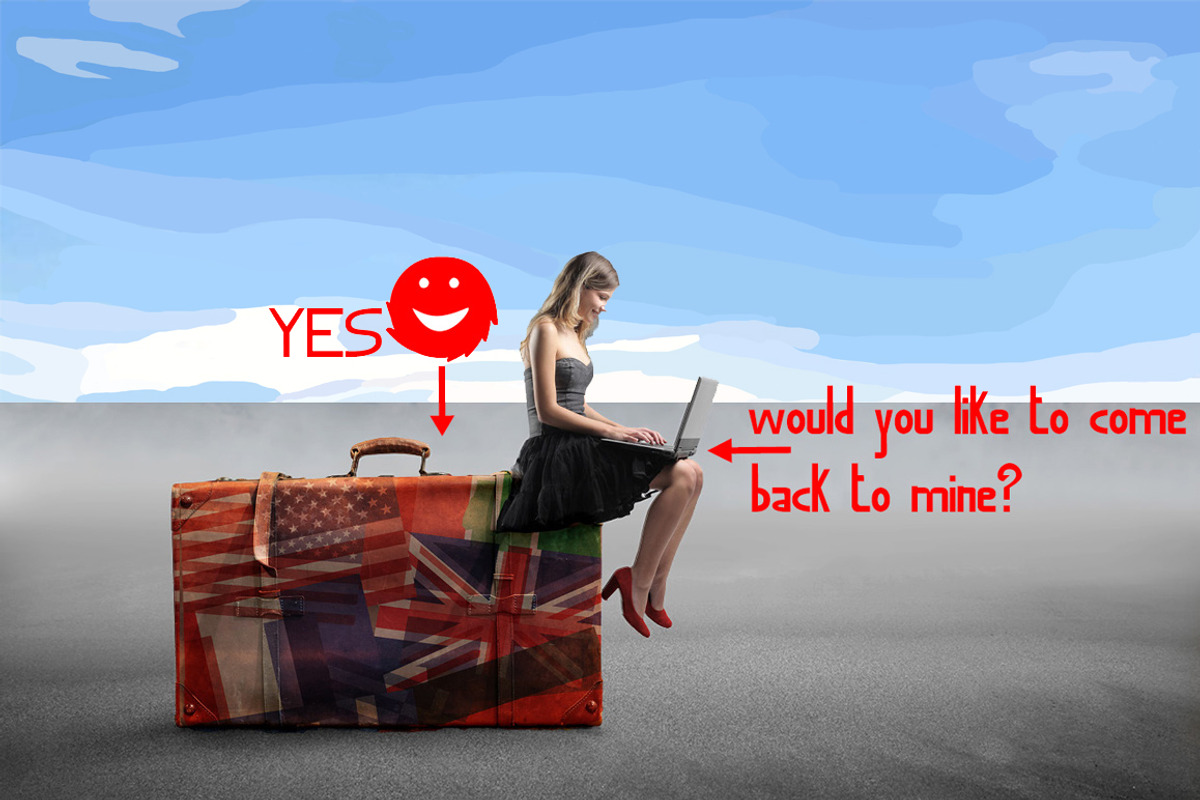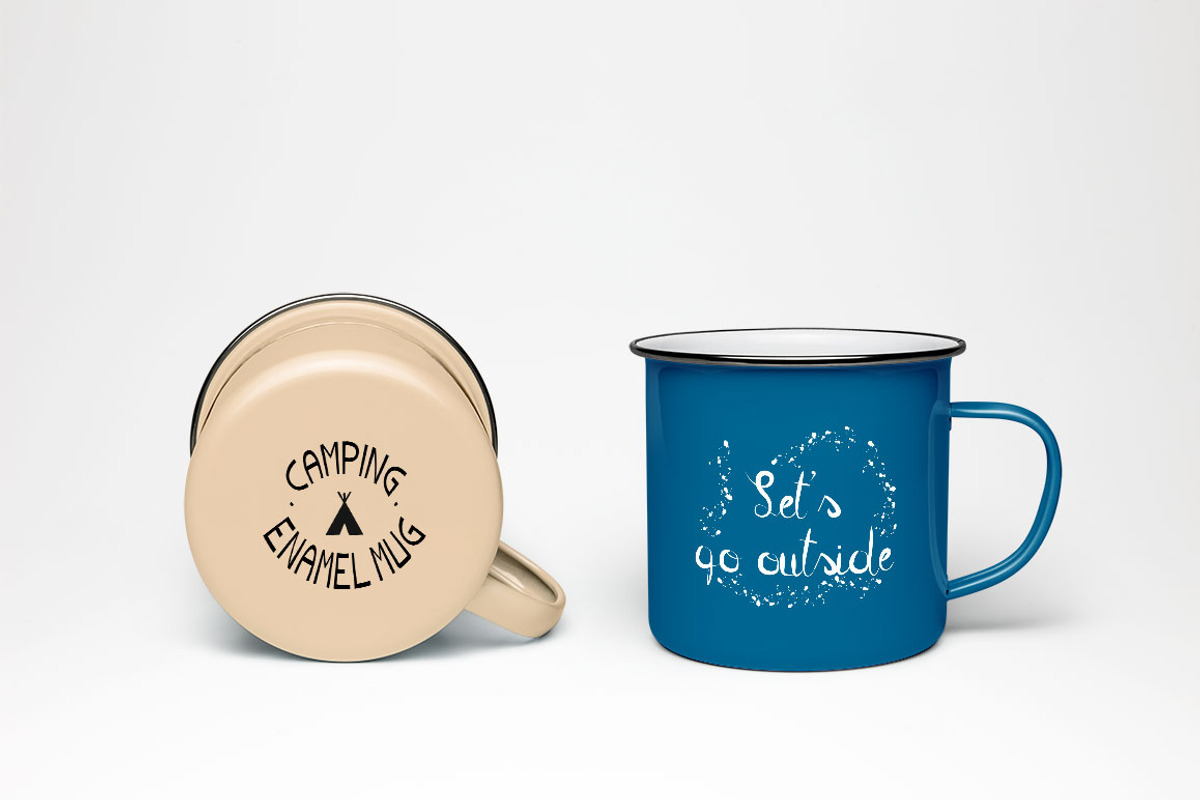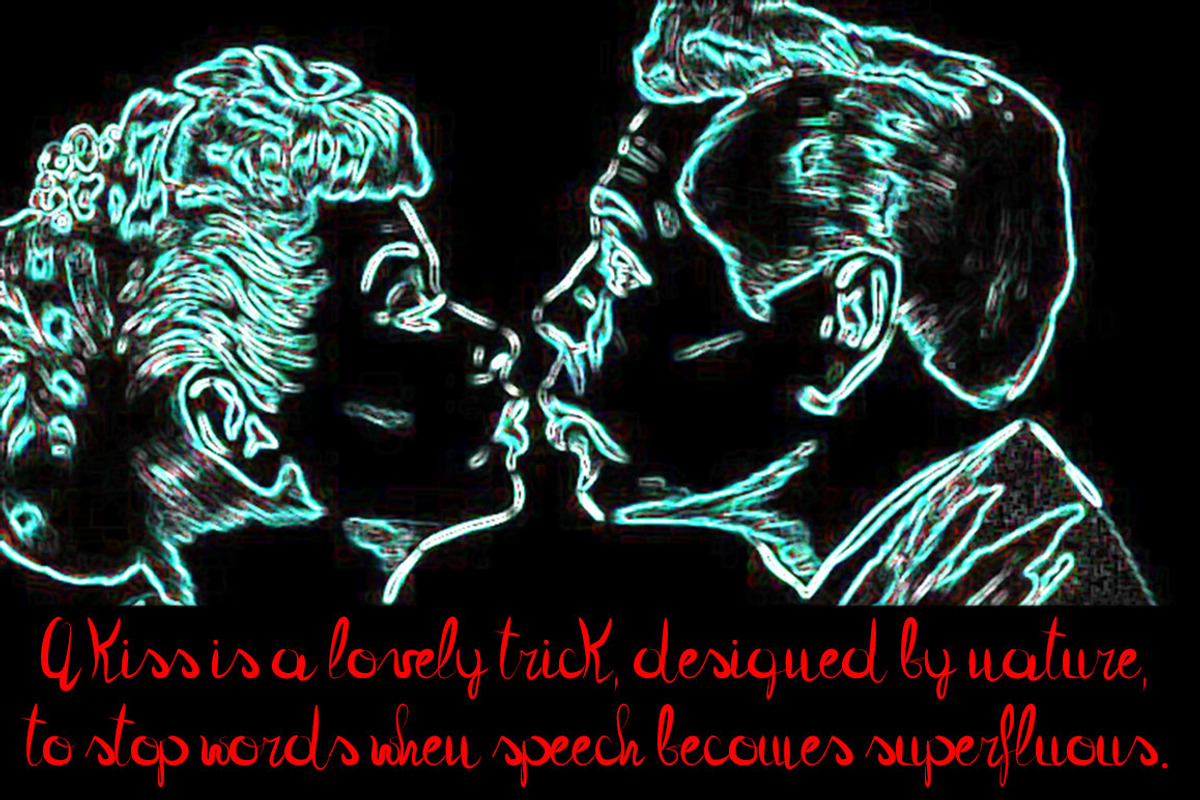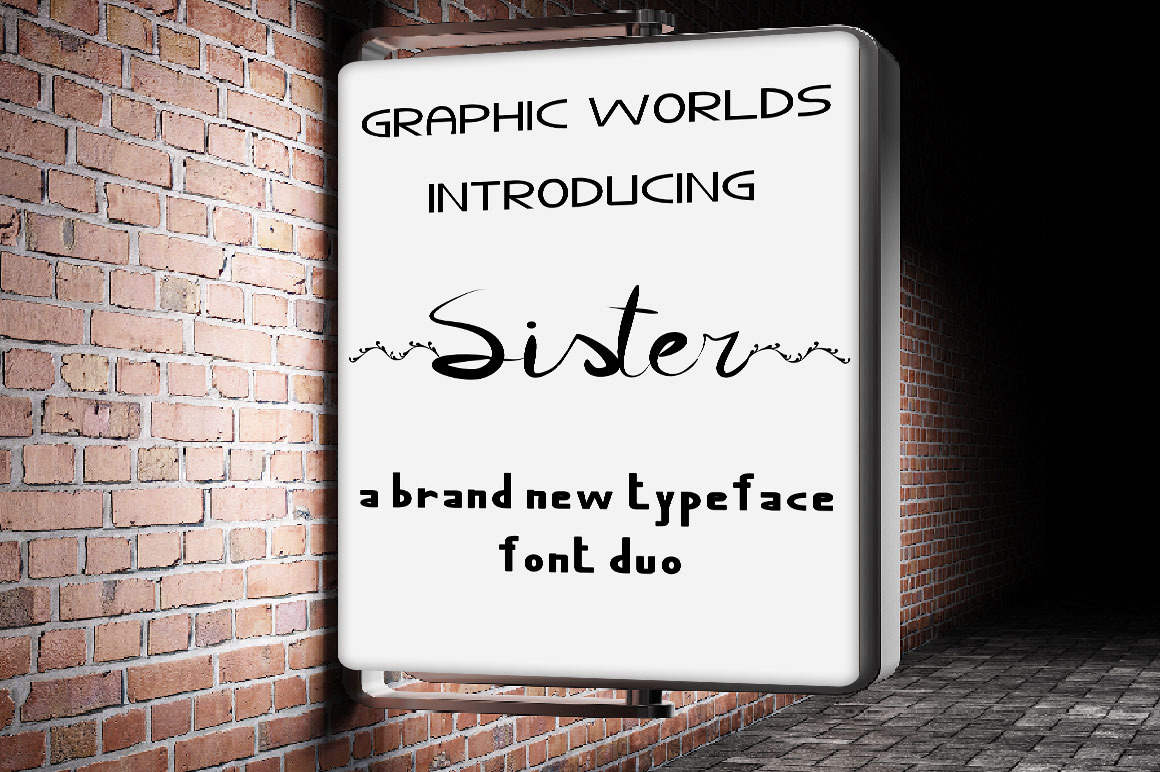
Sister Font Duo
Sister is a duo of hand-scripted fonts, carefully designed to work together.
This font was inspired by the strong bond between sisters.
Included 25 decorative characters.